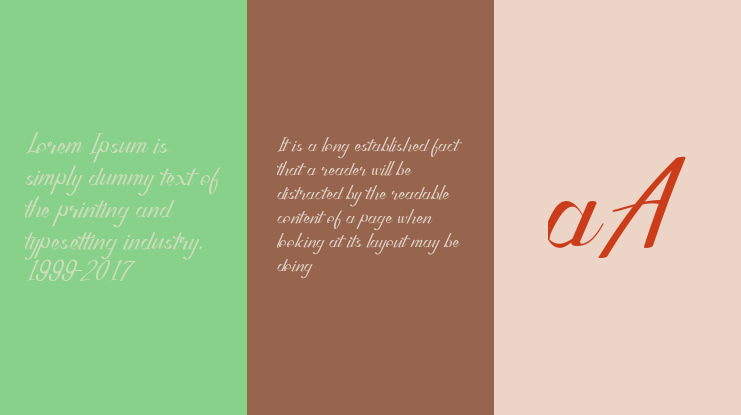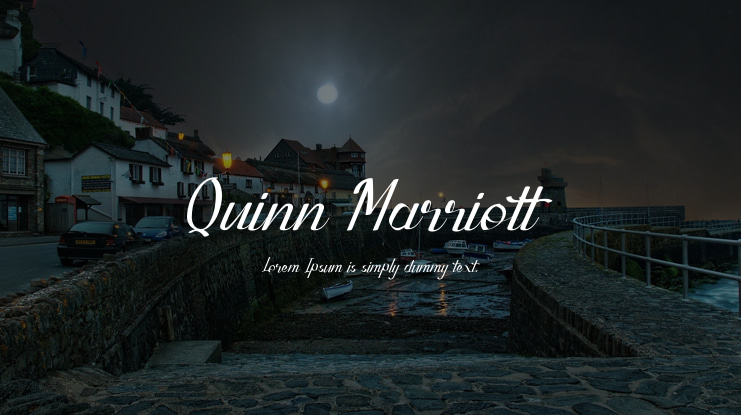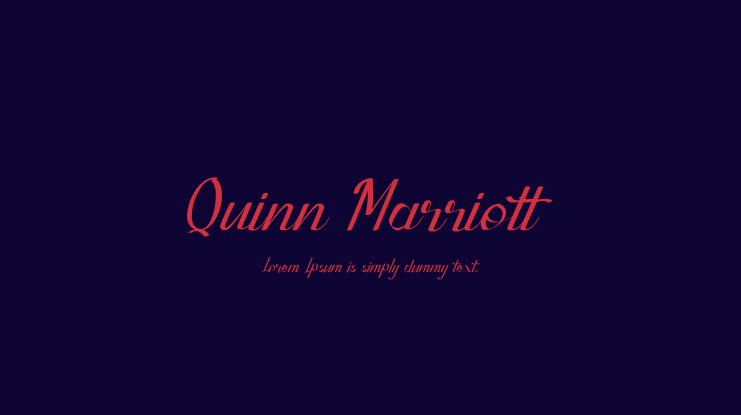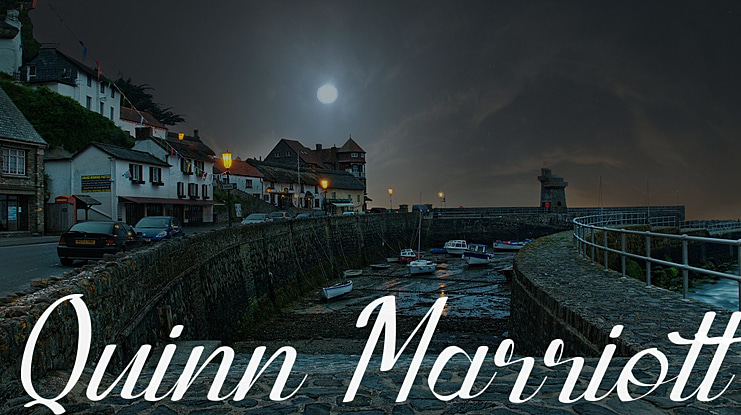
Quinn Marriott Font
Quinn Marriott is a calligraphy font with a modern and classic touch. Related in the family script. This font allows you to make product text more specialized and dynamic, being an alternative choice from regular fonts that seem constant. Relevant for a slogan, motto, cover, and cover texts, quotes, and more. Suitable for writing branding, wedding invitations, greeting cards, posters, craft products, T-shirts, event projects & logos, merchandise, social media posts, product packaging, and more. You can buy full license from our store for more our fonts: https://uicreative.net/products/fonts-quinn-marriott